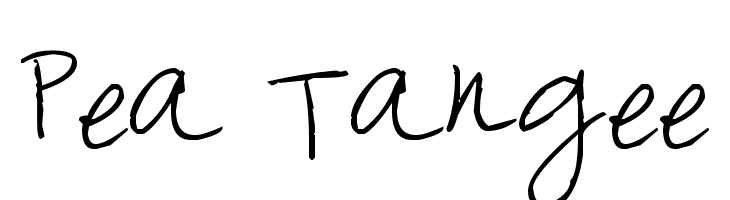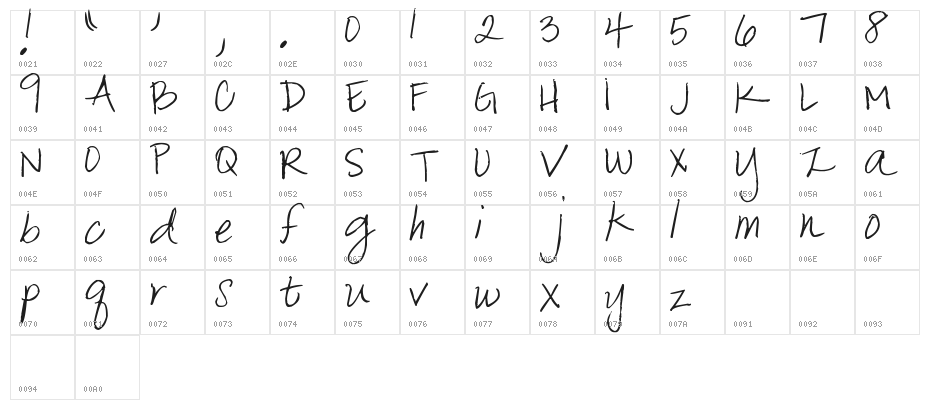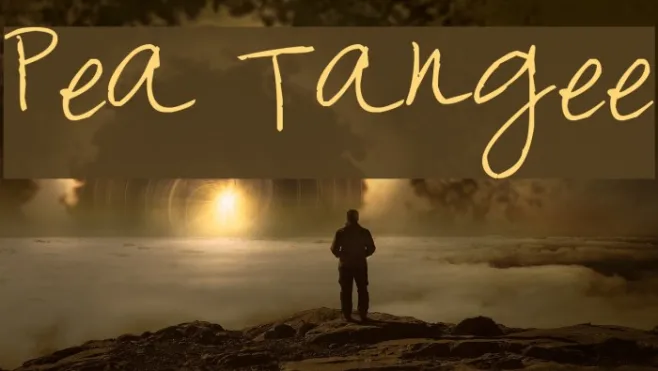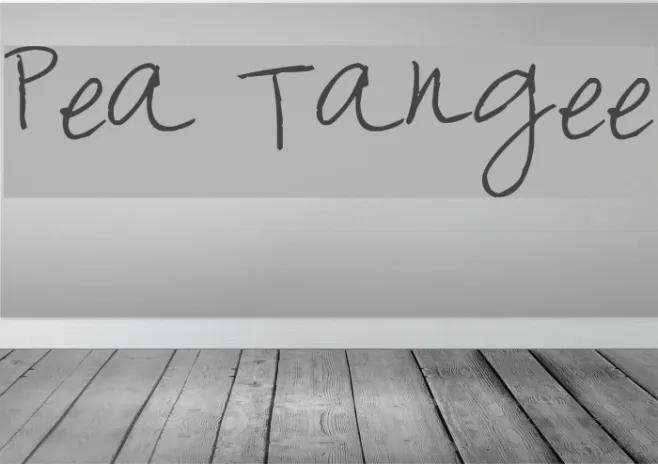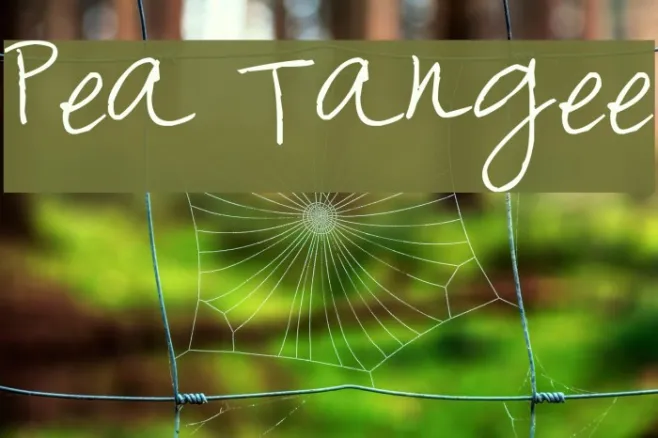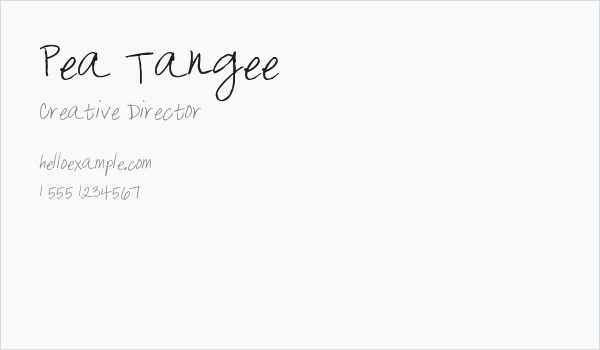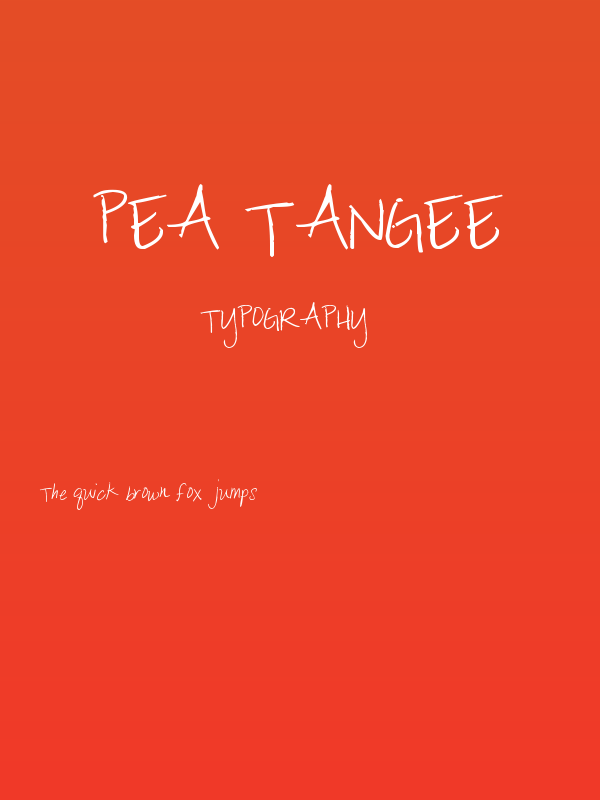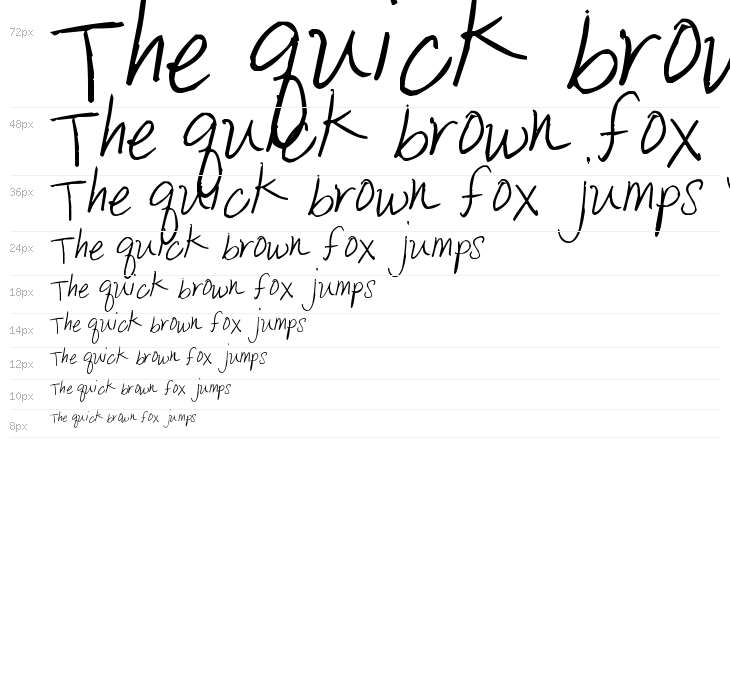
Pea Tangee Font
Pea Tangee Description
This font exudes a casual, handwritten style with a playful and informal appearance. The letters are slightly slanted, giving it a dynamic and energetic feel. The strokes are uneven, mimicking the natural flow of handwriting, which adds a personal touch to the text. The uppercase and lowercase letters are well-proportioned, maintaining readability while still conveying a sense of spontaneity. The numbers and special characters follow the same style, ensuring consistency across all elements. This font is perfect for projects that require a personal, approachable, and friendly tone.